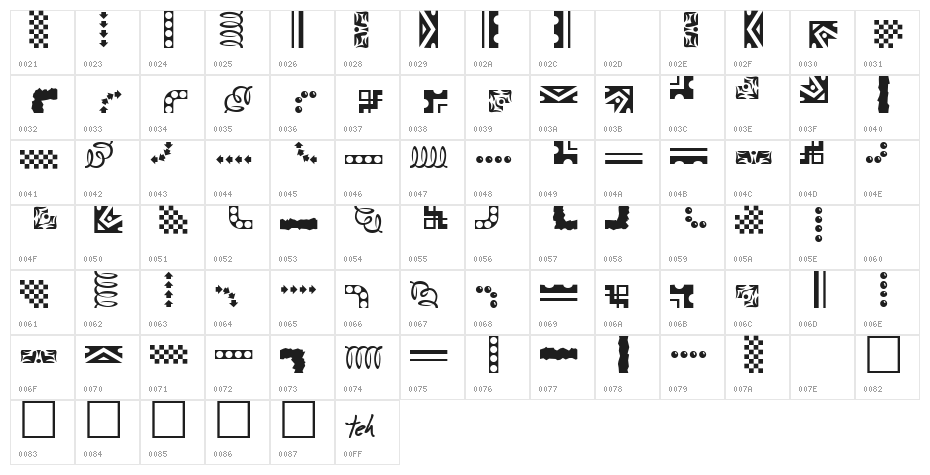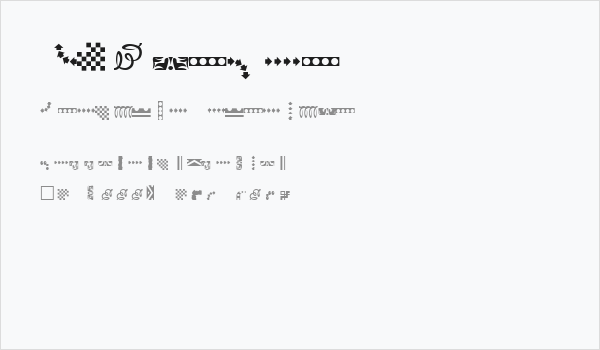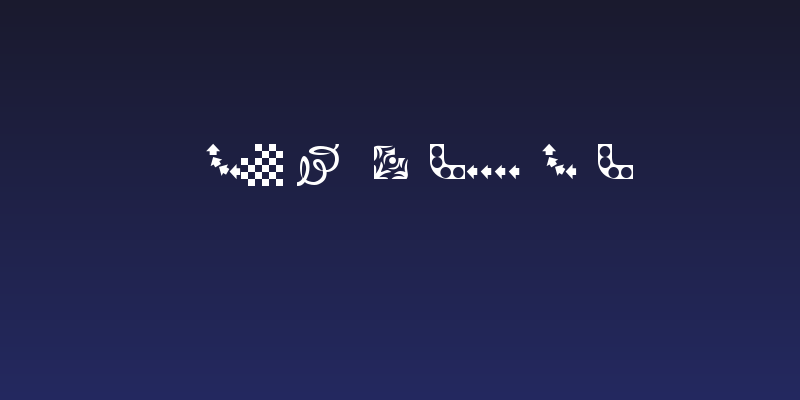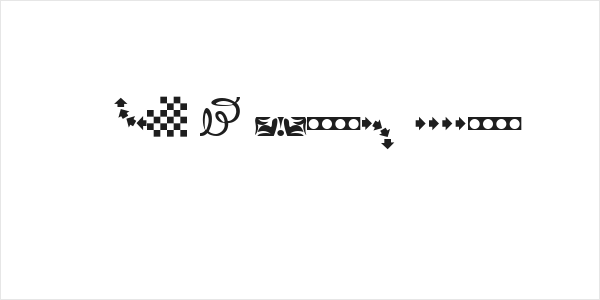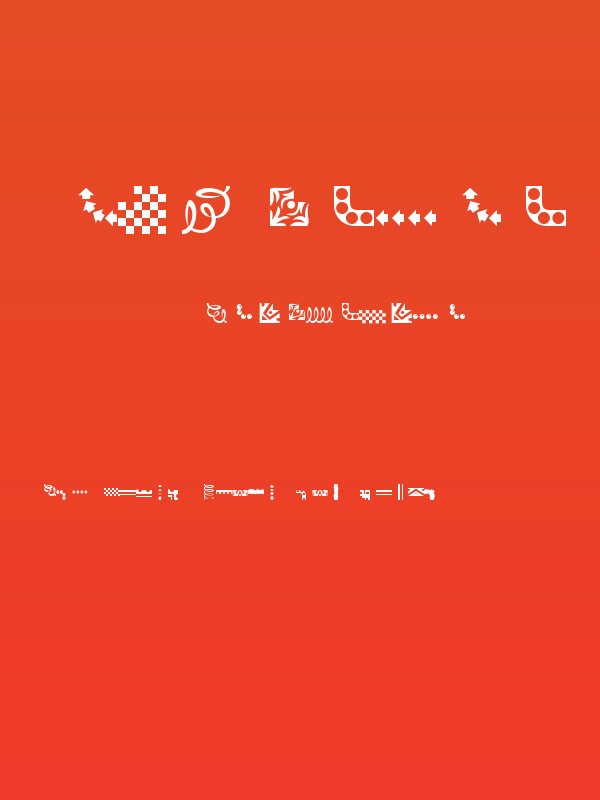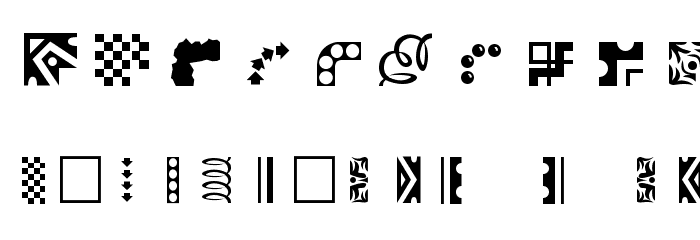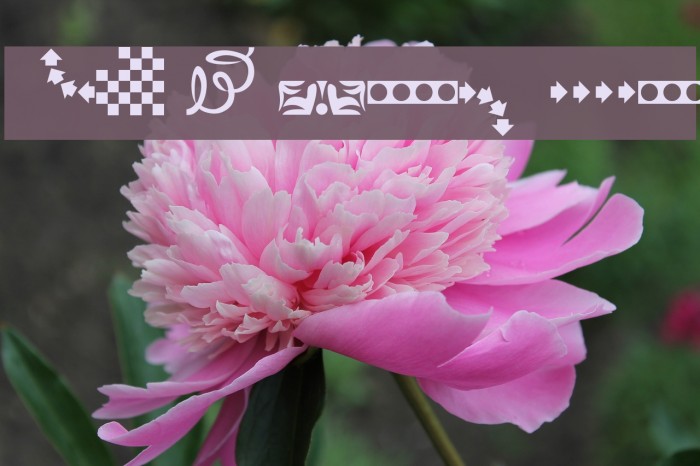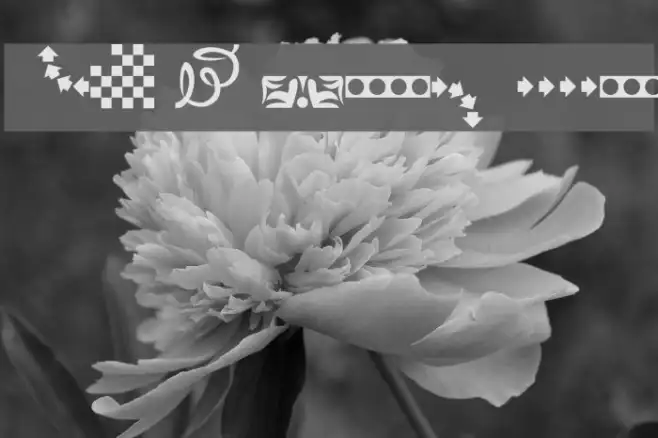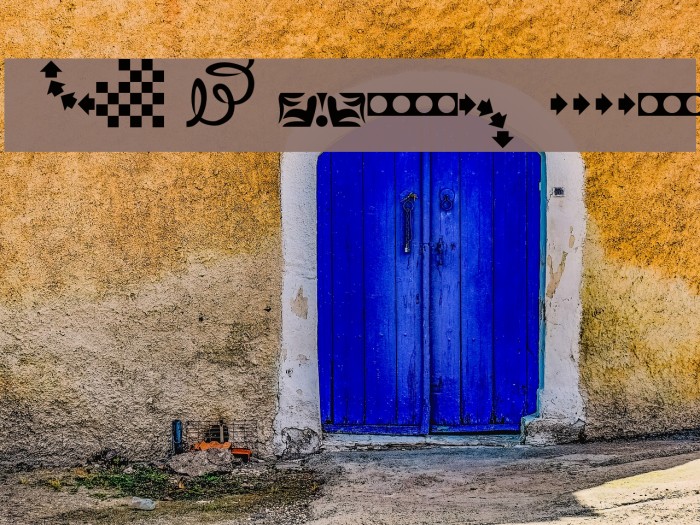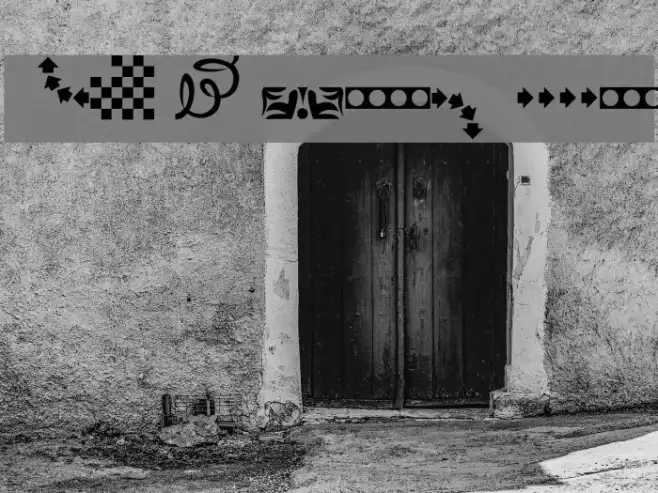
EZBorder Font
EZBorder Description
A highly decorative and ornamental dingbat font composed of various border and corner motifs, including geometric patterns, swirls, dots, arrows, and checkerboard designs. Each character represents a unique border segment or corner element, suitable for creating custom frames and dividers.
| Use Case | Borders, frames, dividers, embellishments. |
| Proposed Projects | Invitations, certificates, scrapbooking, decorative frames, digital art, page borders. |